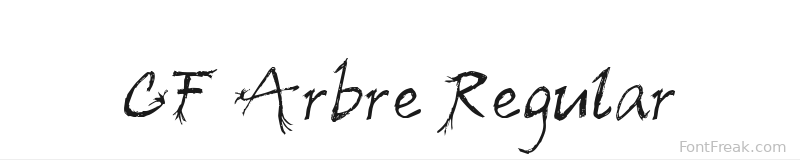
CF Arbre Regular
CF Arbre Regular is a captivating display font created by Cloutierfontes, characterized by its unique blend of artistic flair and readability. As a decorative typeface, it features an intriguing handwritten style that evokes a sense of creativity and whimsy. The strokes exhibit a moderate weight with organic curves that add a playful touch, while the contrast between thick and thin lines enhances its visual appeal. The spacing is generous, allowing the letters to breathe without sacrificing legibility, making it ideal for various design applications.
This font shines in several specific use cases. It is perfect for wedding invitations, where its elegant yet informal style can convey warmth and personal touch. Additionally, CF Arbre Regular works beautifully for movie posters, lending a distinctive character that can capture the essence of the film. Restaurant menus can also benefit from its charming aesthetic, helping to create an inviting atmosphere that attracts diners. Moreover, small business branding, particularly for artisanal or creative ventures, can utilize this font to stand out in a crowded market.
What sets CF Arbre Regular apart is its ability to blend creativity with functionality. Its unique design elements capture attention while remaining approachable and easy to read. For those seeking to enrich their typographic toolkit, this font is a must-have. Don’t miss the opportunity to enhance your designs with the CF Arbre Regular font free download, and let your projects flourish with its distinctive charm.